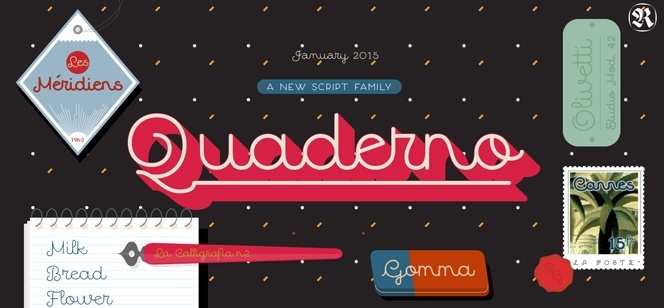
Quaderno font family
Quaderno is a new font family by Resistenza type foundry. Designed as a upright script with very round and soft forms, it is developed in three main styles – calligraphic (designed in single weight), Normal (designed in 9 separate weights) and Quaderno Noodle which is the round terminals version of Normal, also designed in 9 separate weights. As a whole, Quaderno offers something rare for script typefaces – this is the option to pick from different weights. This new family is could be mostly described as low contrast one, but if you take a close look to the presentation images, you will find out that in fact Quaderno is almost a multilayer family – something very trendy at the present moment. If you take one of the light weights and place it over the heavier one, you will definitely achieve the result of beautiful inline effect. Another great option for use of the family is applying strong perspective shadows – they give very artistic 3D look and perfectly fit to font’s character. Quaderno is excellent for short texts and headlines, but you could easily use it in a kid’s poetry book, toy packaging, wine and food labels. Because of its charm and specific roundness it is very useful for invitations, wedding and greeting cards – special place here has the calligraphic version which adds even more originality and authentic look.
Quaderno font family is designed by two talented individuals with total dedication to typography, calligraphy and type design – Giuseppe Salerno and Paco Gonzales of Resistenza type foundry. Check the links and find out some treasures inside their font portfolio: Nautica, Peperoncino Sans, Attica RSZ, Superb, Rachele, Two Fingers.